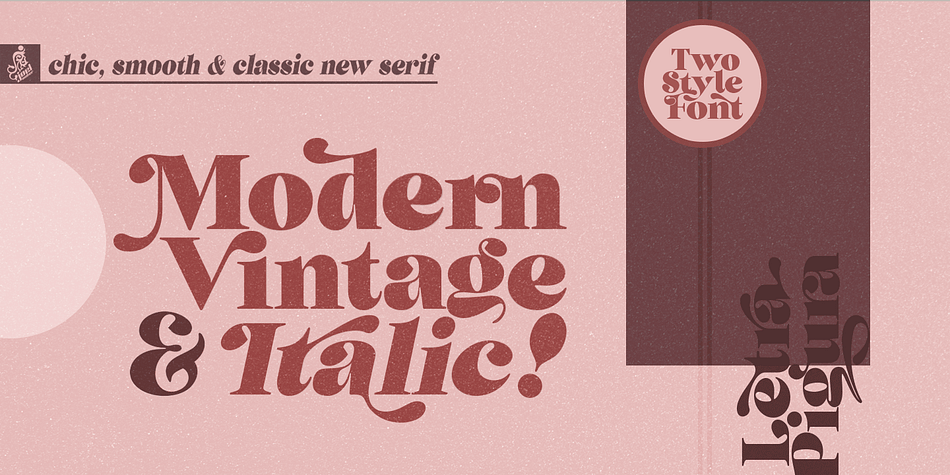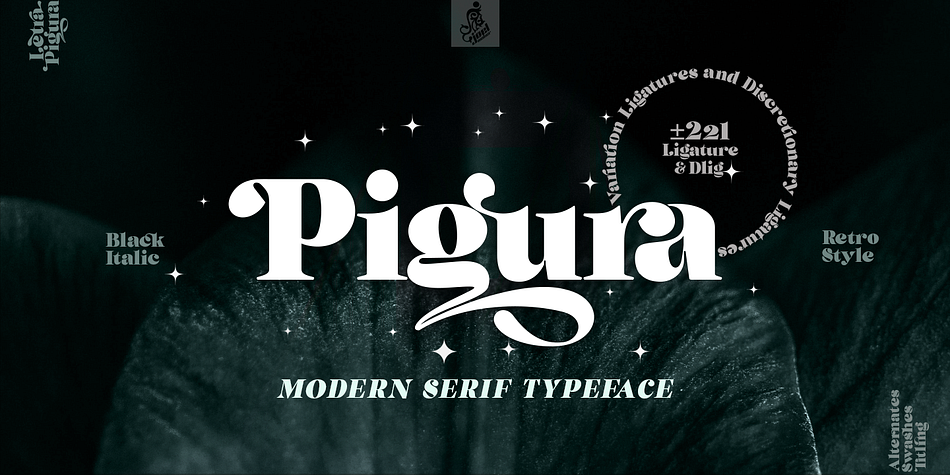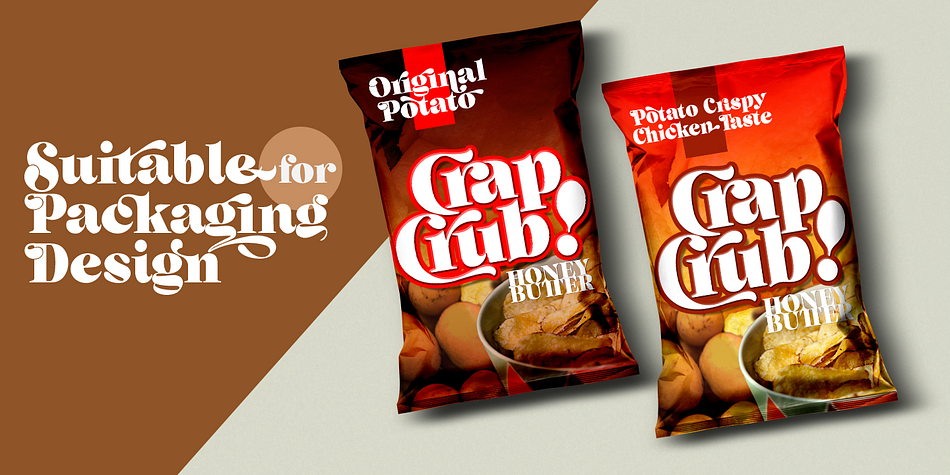
Pigura Serif
Pigura Serif is a display serif and serif font family. This typeface has two styles and was published by joelmaker.
**About Pigura Font Family**
“Pigura Serif” is a Chic, modern font and elegant retro serif with an artistic touch for vintage the as well as a unique blend of ligatures a letter, so that the authors compose it with a and little swirly embedding, so that a modern font is formed and ready to make a statement by adding elegant and unique flair to your next design project.
“Pigura Serif” can be used for various purposes such as Magazine Title, Poster, Logo, T-Shirt, Sub Title, Business cards, Magazines, Book Covers, Wedding Invitations,Templates Instagram Story Post, Greeting Cards, Quotes, etc.